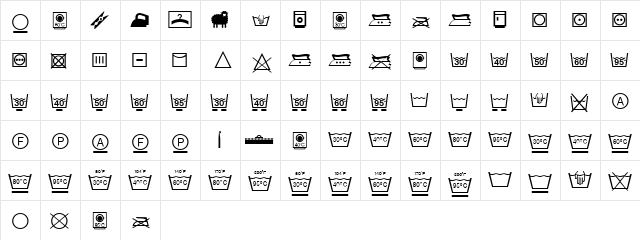
Linotype Textile Pi Regular
Design Context for Linotype Textile Pi Typeface
Linotype Textile Pi is a composed and adaptable typeface that performs quietly and consistently across a wide range of design contexts.
Pro Tip: Use Linotype Textile Pi in both headline and body roles to test its range before committing to a single application.